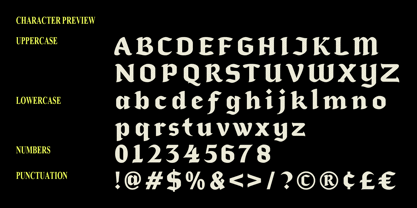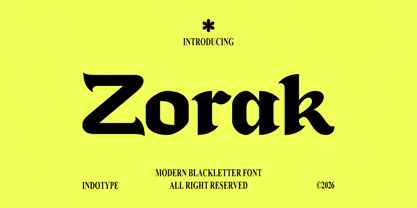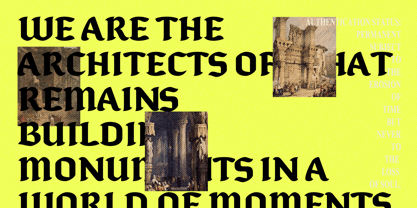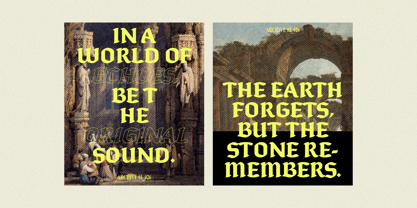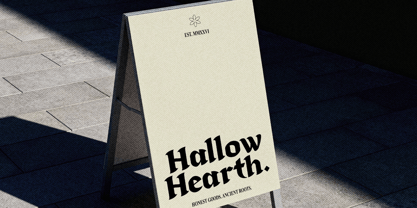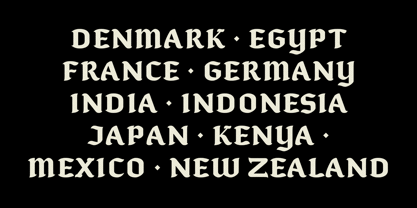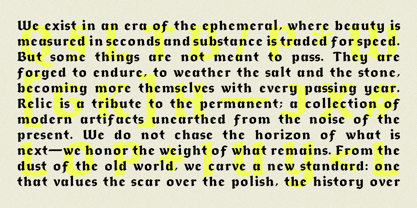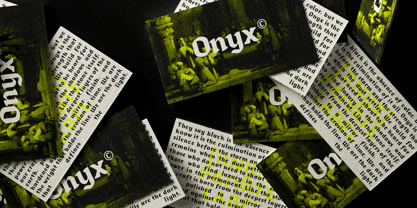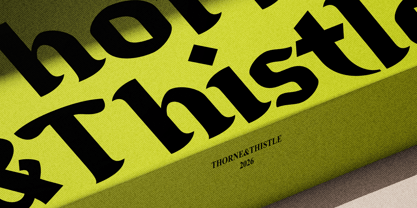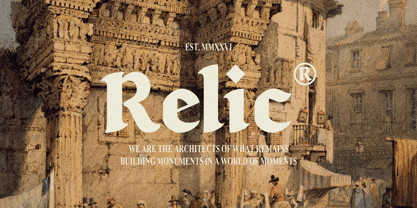
IT Zorak
by Indotype
The IT Zorak Font Family was designed by Dede Kurniawan and published by Indotype. IT Zorak contains 2 styles and family package options. More about this family
Zorak is a modern blackletter typeface that boldly bridges centuries — drawing deeply from the gothic manuscript tradition while speaking with an unmistakably contemporary voice. Designed by Indotype, Zorak strips the blackletter genre of its historical rigidity and reimagines it through the lens of modern display design: the dramatic ink-black mass of classic textura and rotunda scripts is retained, but filtered through fluid, rounded curves and a smooth, high-weight stroke structure that feels fresh, fearless, and entirely of the moment. Zorak is designed for designers who want to project power, heritage, and edge in equal measure. It is ideally suited for: streetwear and urban fashion brand identities, luxury and premium brand logotypes seeking gothic character, heavy music band names, album covers, and tour merchandise, tattoo-inspired apparel and accessory graphics, craft spirits and artisan beverage labels (whiskey, mezcal, dark beer), newspaper and magazine mastheads seeking a modern gothic voice, sports team identities and apparel, editorial headlines for bold cultural publications, and high-end sneaker and lifestyle brand campaigns. Its clean, modern edges and digital-friendly weight distribution ensure that Zorak reproduces with precision across all mediums — from high-resolution print to screen-based brand applications.